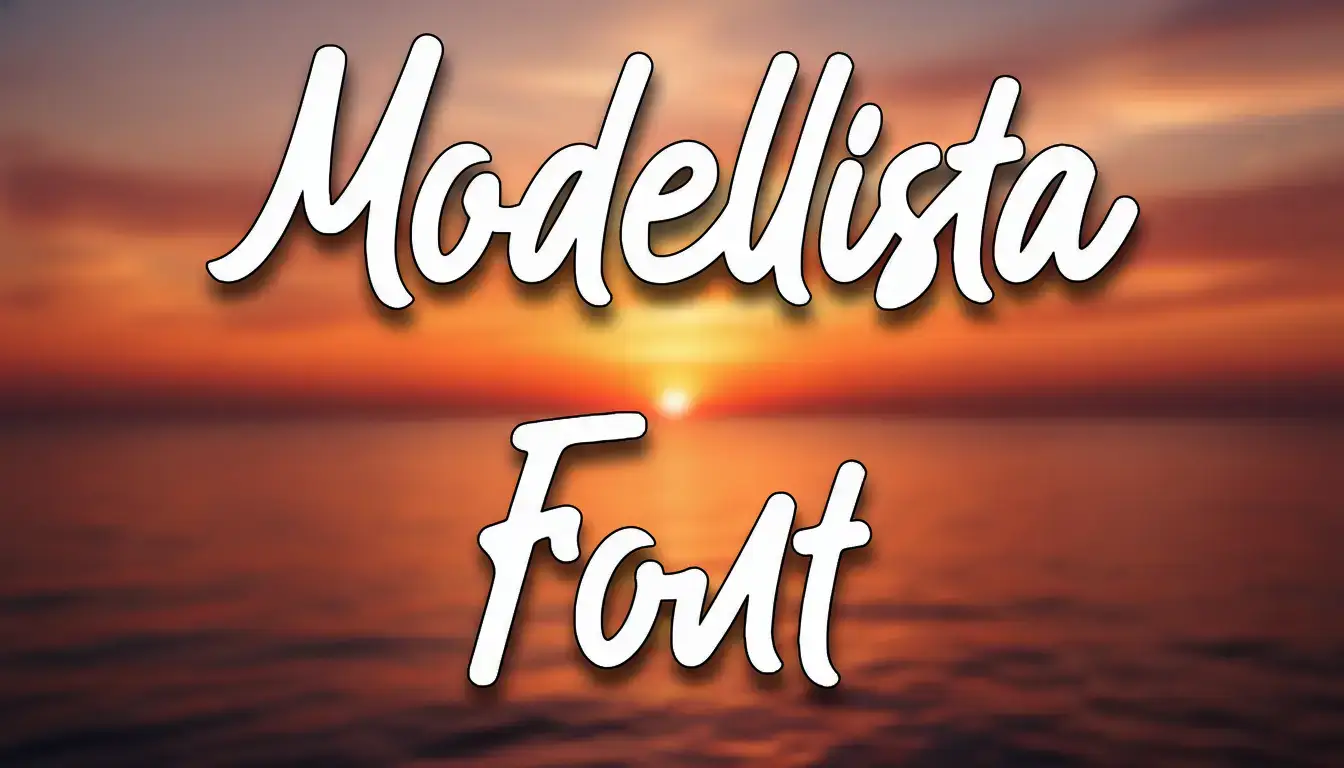
Modellista Font
Modellista
Modellista is a handwritten font designed by Aveni Yuanita and published by Aveni Letter Type. The letters have the small wobbles and personality of real handwriting, so your text feels warm instead of printed. It's a free download, and you can try it with your own text in the preview above first.
- Designer: Aveni Yuanita
- Publisher: Aveni Letter Type
What You Can Type With Modellista
Modellista covers the full alphabet in upper and lowercase, plus all ten numbers, so you can set names, dates and prices without switching fonts. Everyday marks like &, !, ? and @ are there too. Thanks to its accented letters, it also works for Spanish, French, Portuguese and Italian, not just English.
Where Modellista Works Best
Modellista is a natural fit for greeting cards, journal pages and friendly social posts. Set it a bit larger than you would a normal text font. Handwriting styles lose their charm once they get too small to read comfortably.
Does Modellista support accented letters?
Yes. Modellista includes the accented letters needed for Spanish, French, Portuguese and Italian, so it works for more than just English.